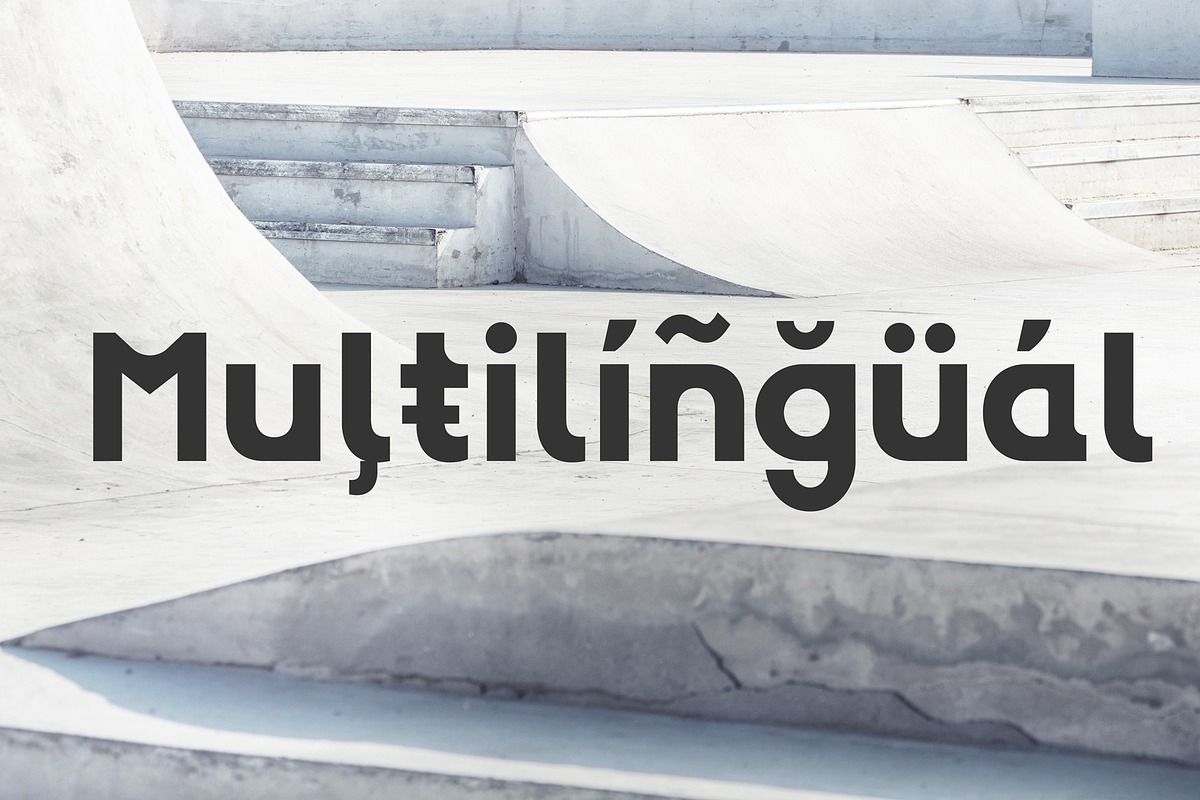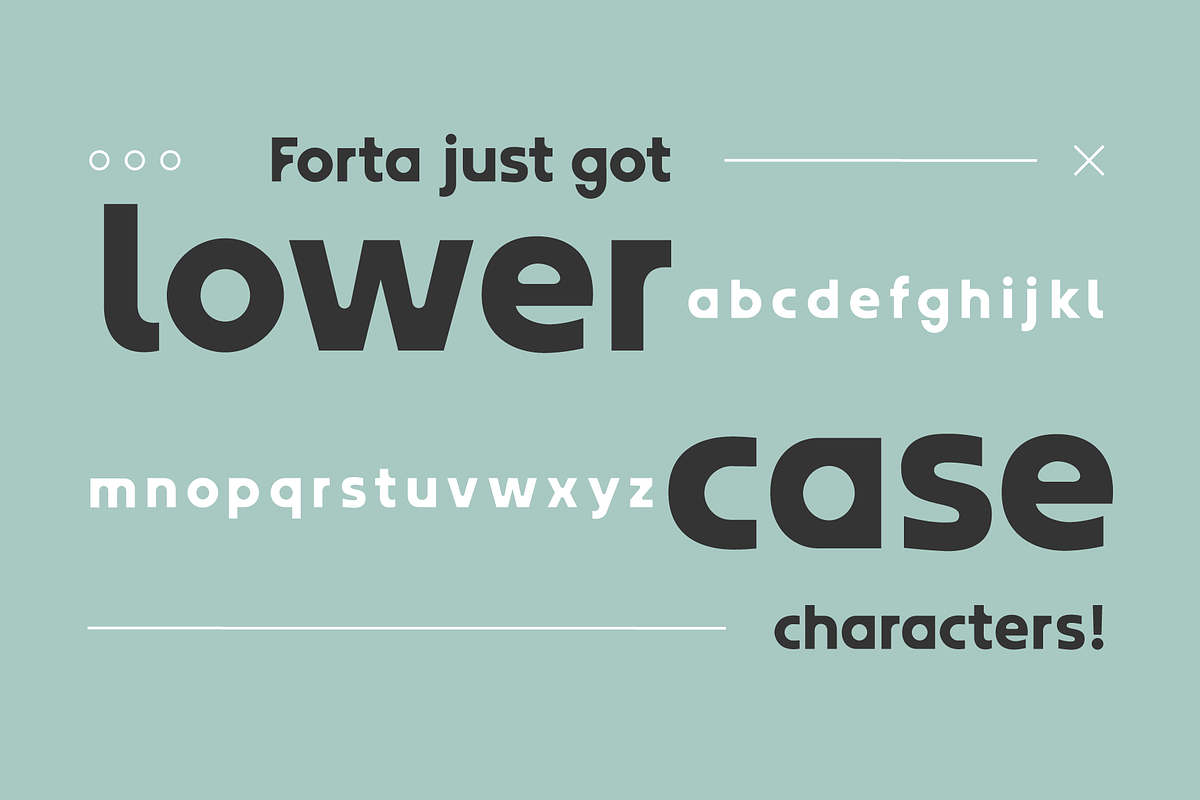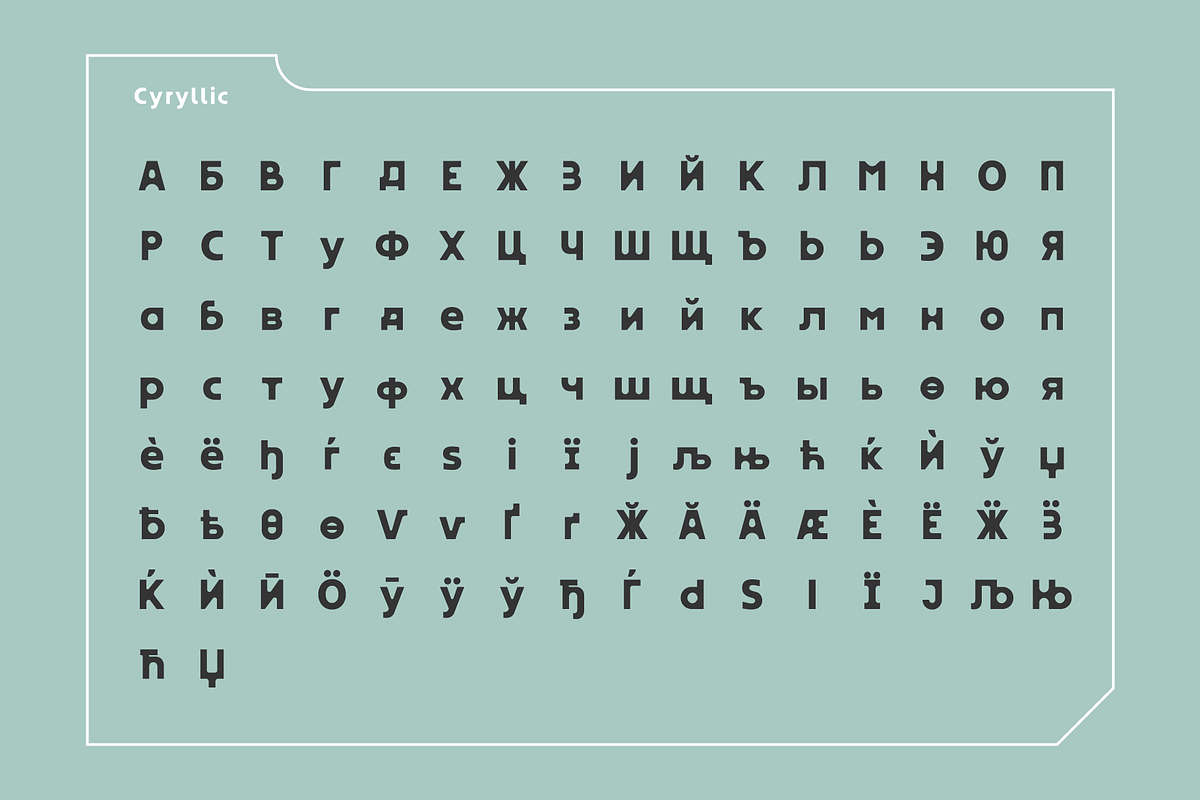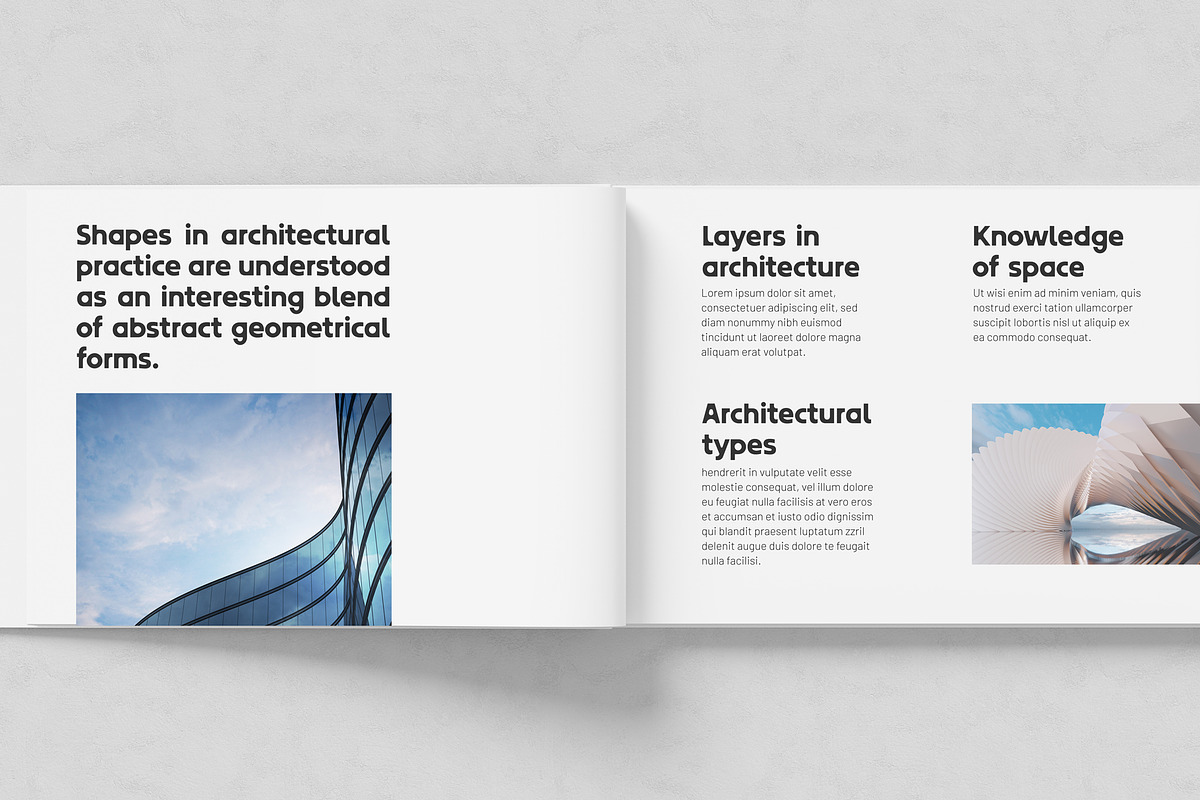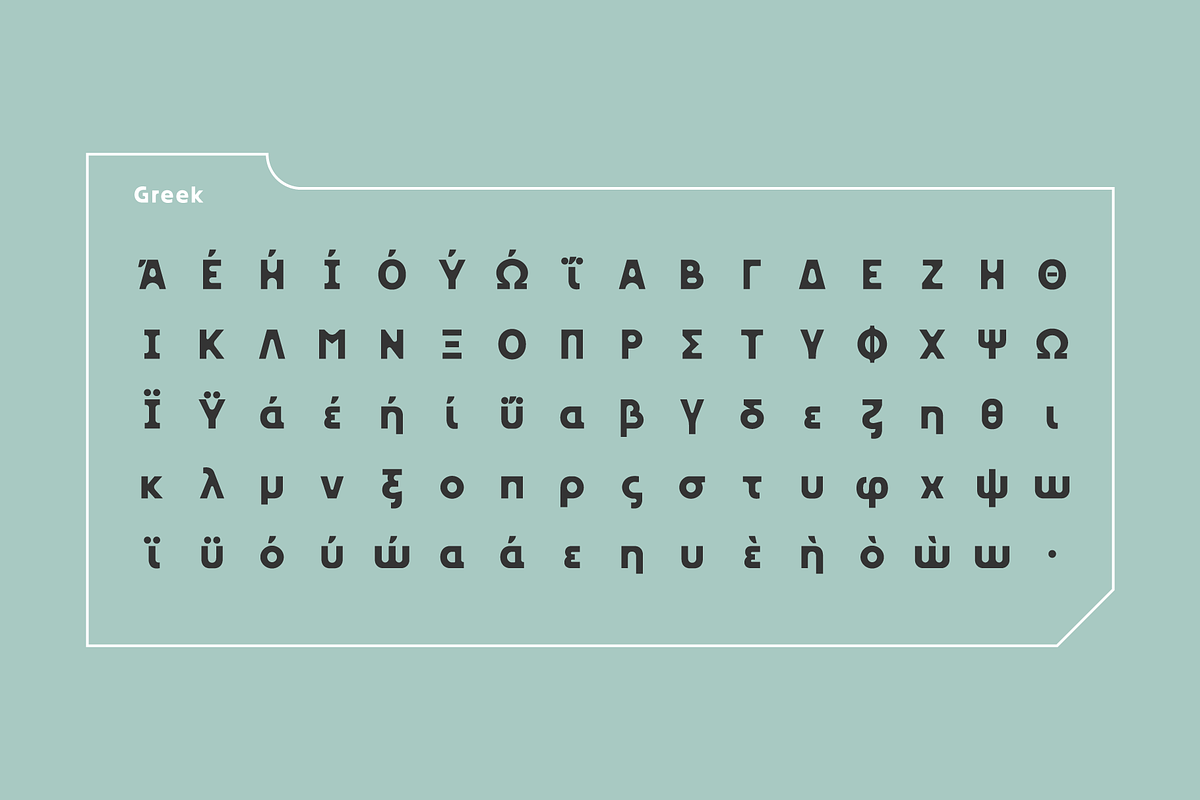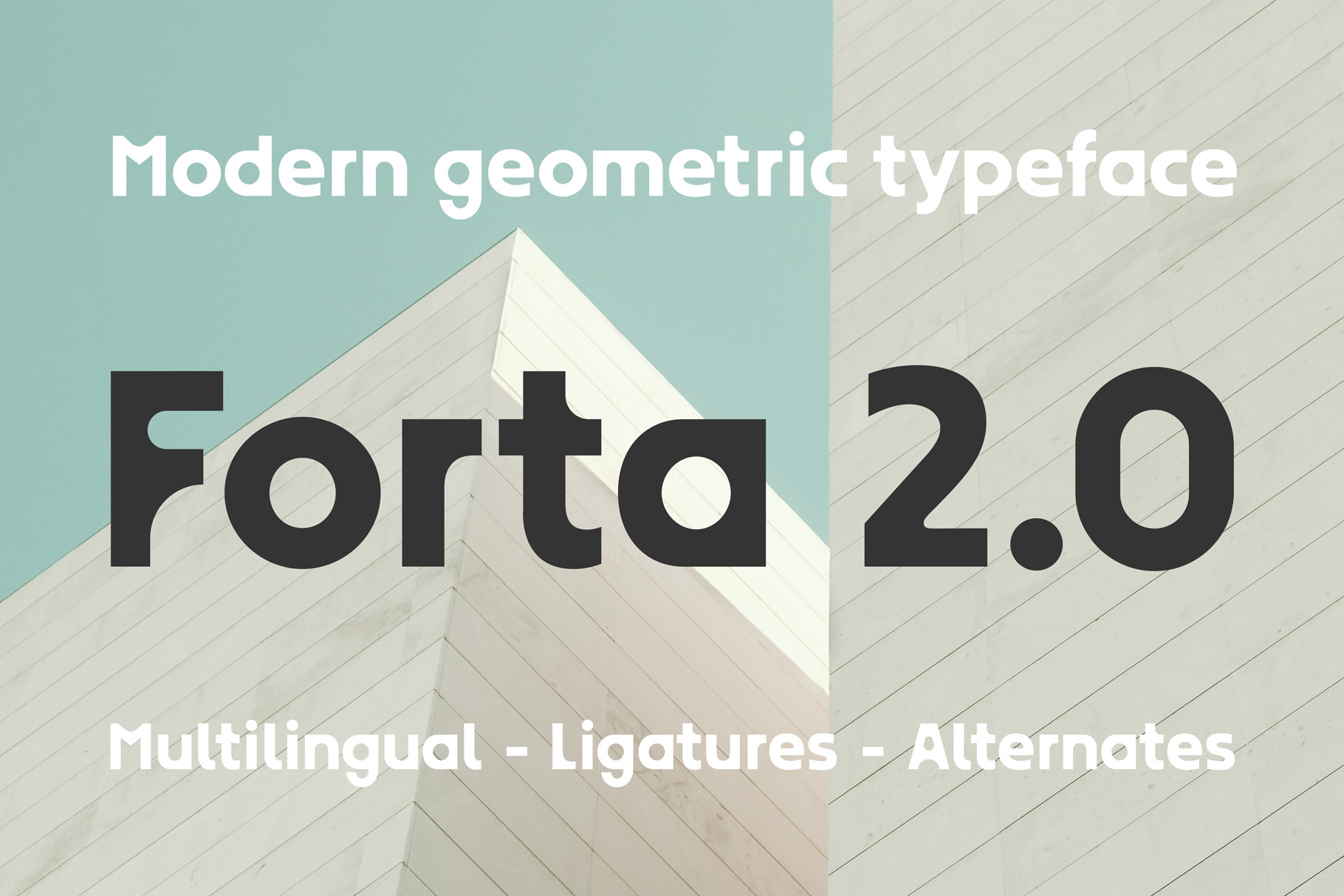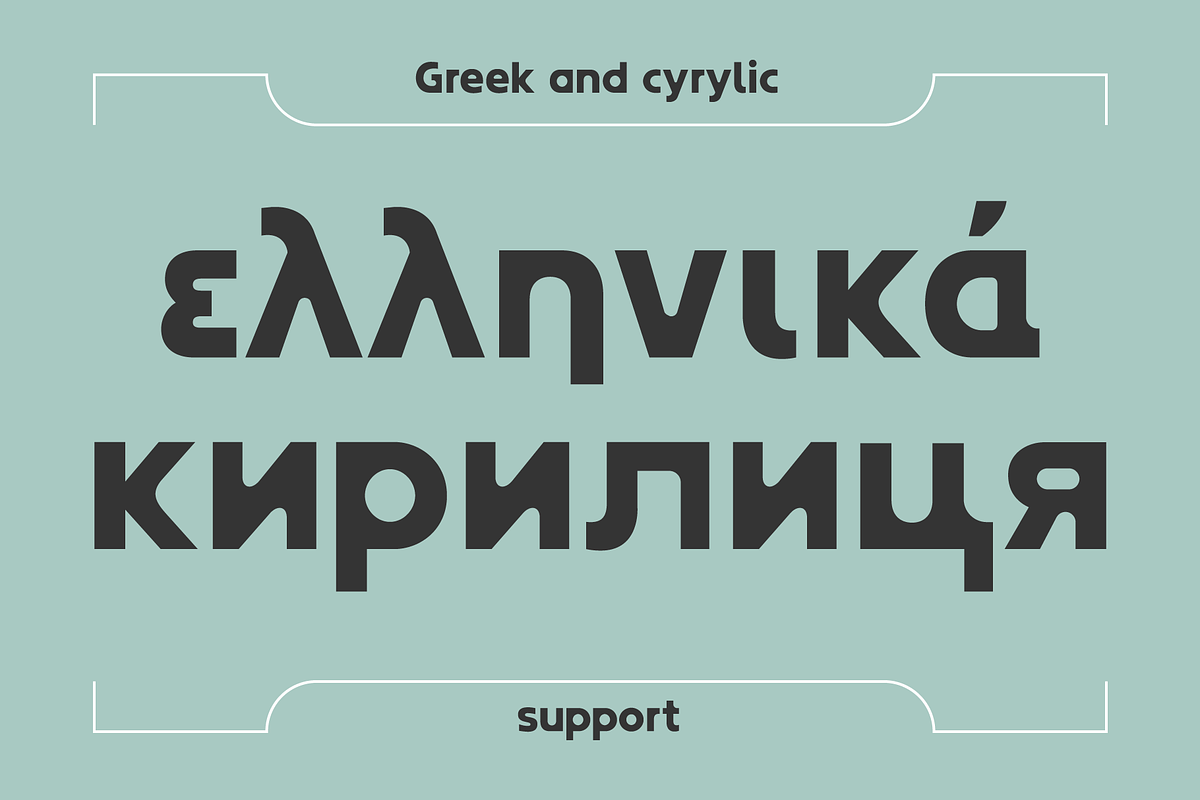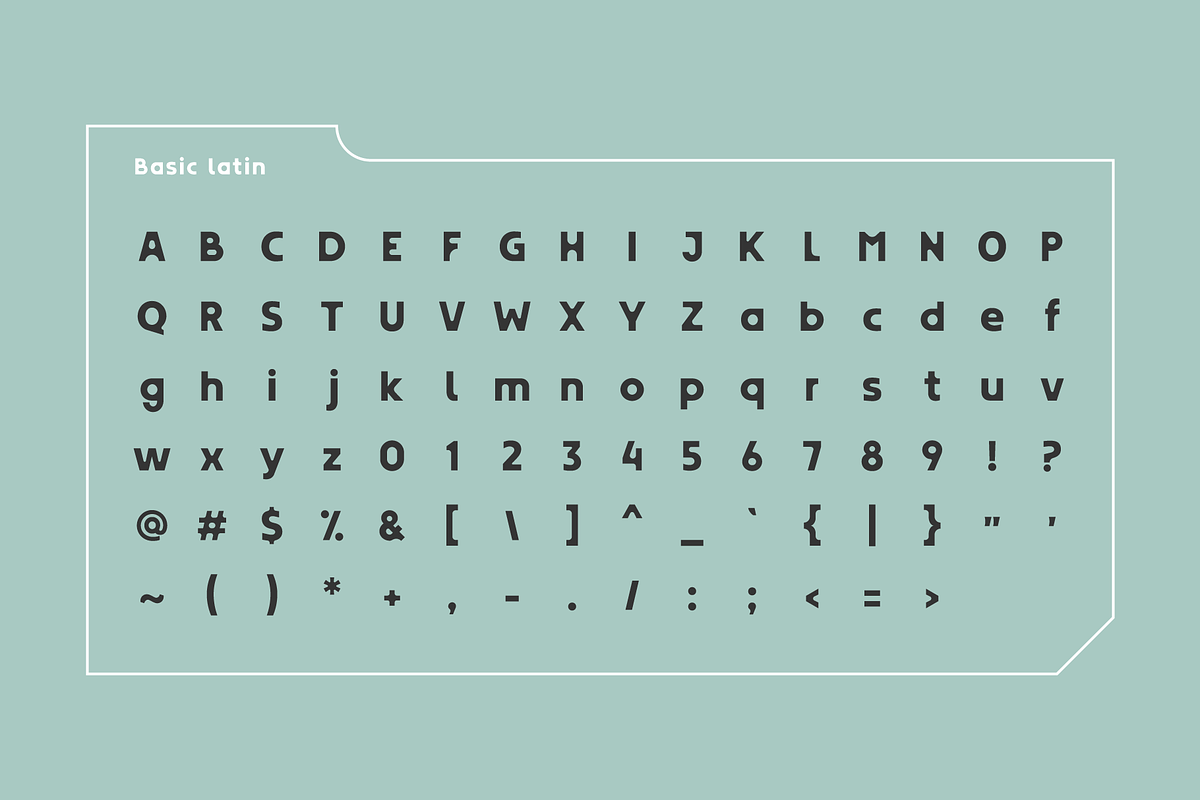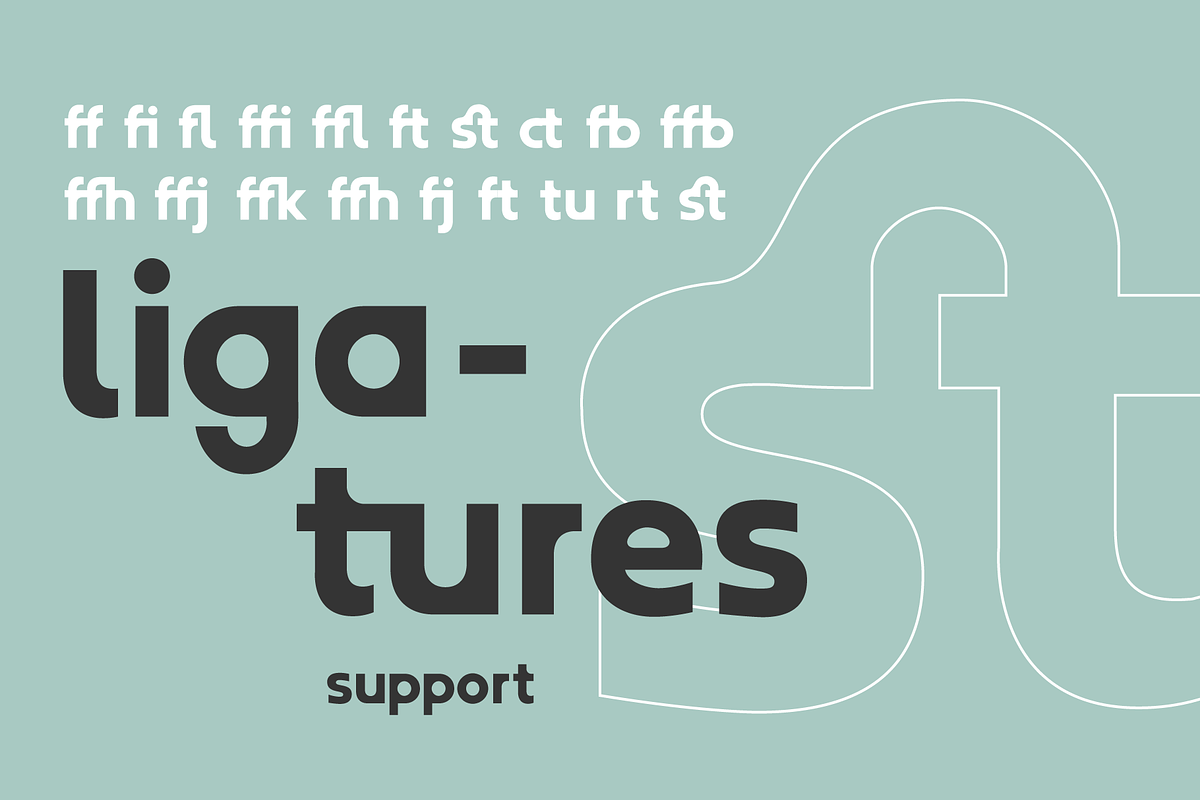
Forta 2.0 Modern unique typeface
Forta is a modern typeface, perfect for headlines, short sentences, logos, web design, posters etc. Forta is perfectly balanced between modern styling and readability. It combines sharp edges and soft curves into unique, visually appealing shapes. Forta contains over 600 glyphs and supports over 25 languages, icluding greek and cyryllic.